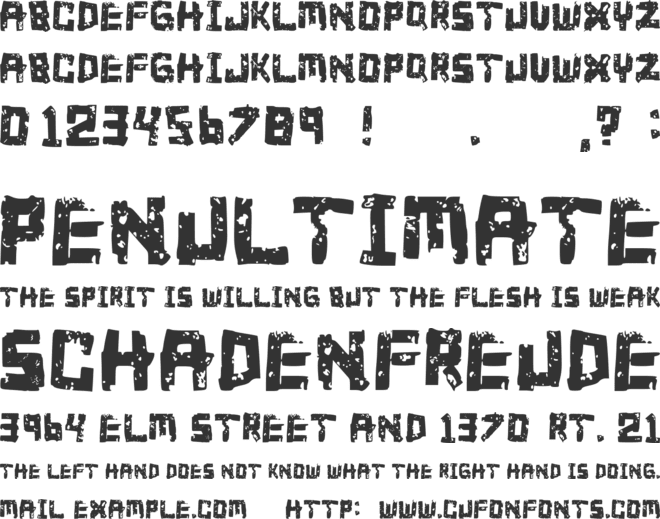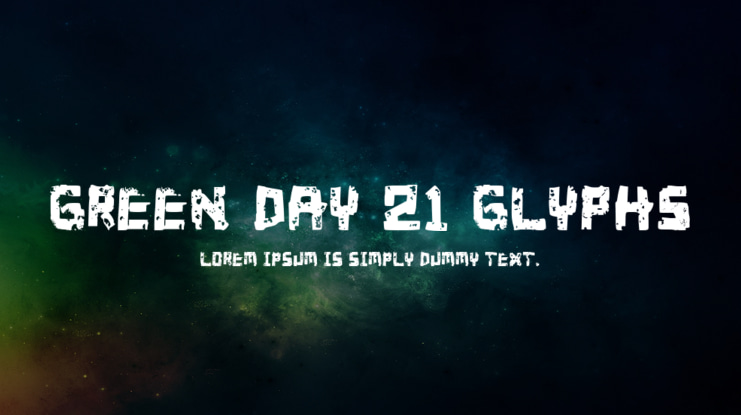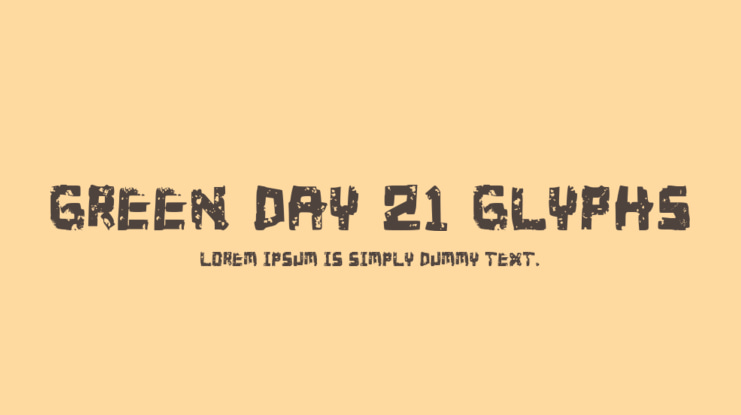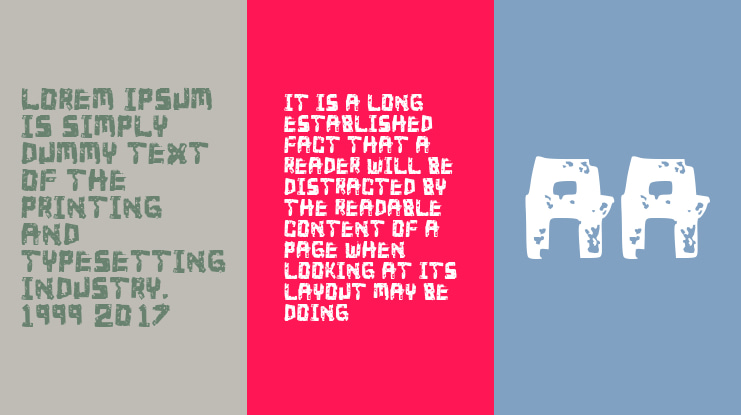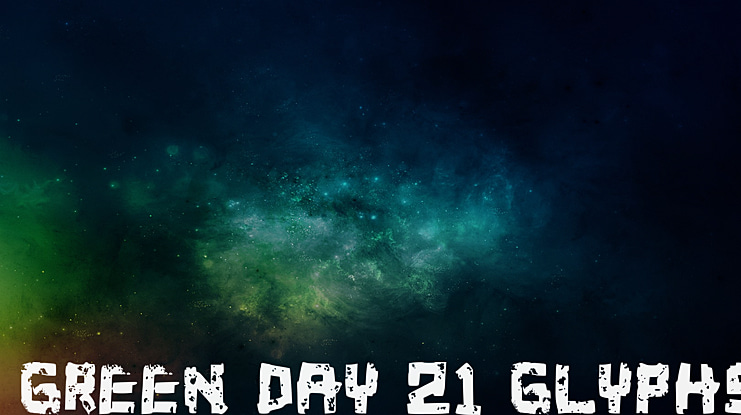
Green_Day_21_Glyphs Font
I claim NONE of this! I couldn't find the font used in the album title of 21st Century Breakdown so I made it myself. I used image samples from the album cover as reference and FontForge to make the actual font. Have fun!